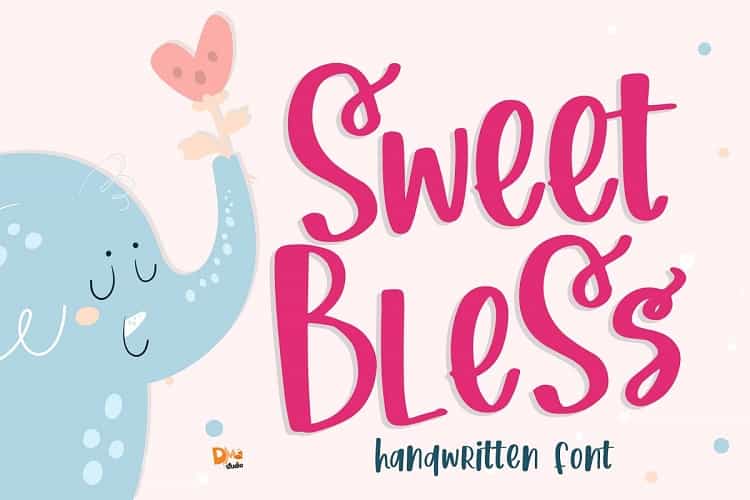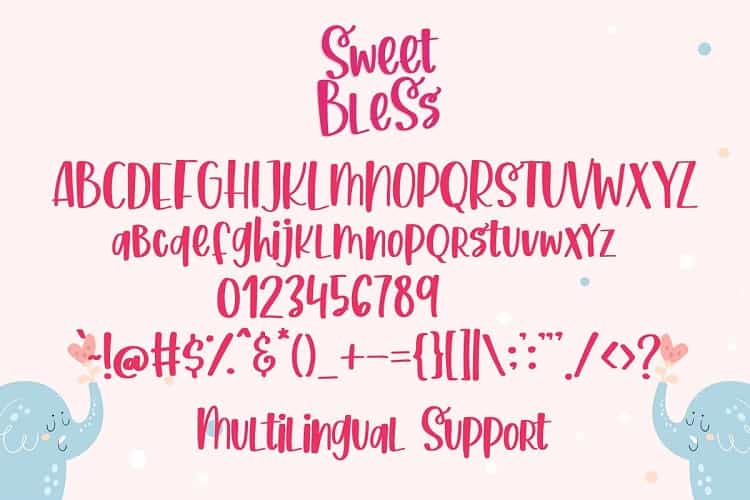
Sweet Bless Handwritten Font! It is a cute and quite universal handwriting style font. Make your crafts look more attractive with the help of this font.